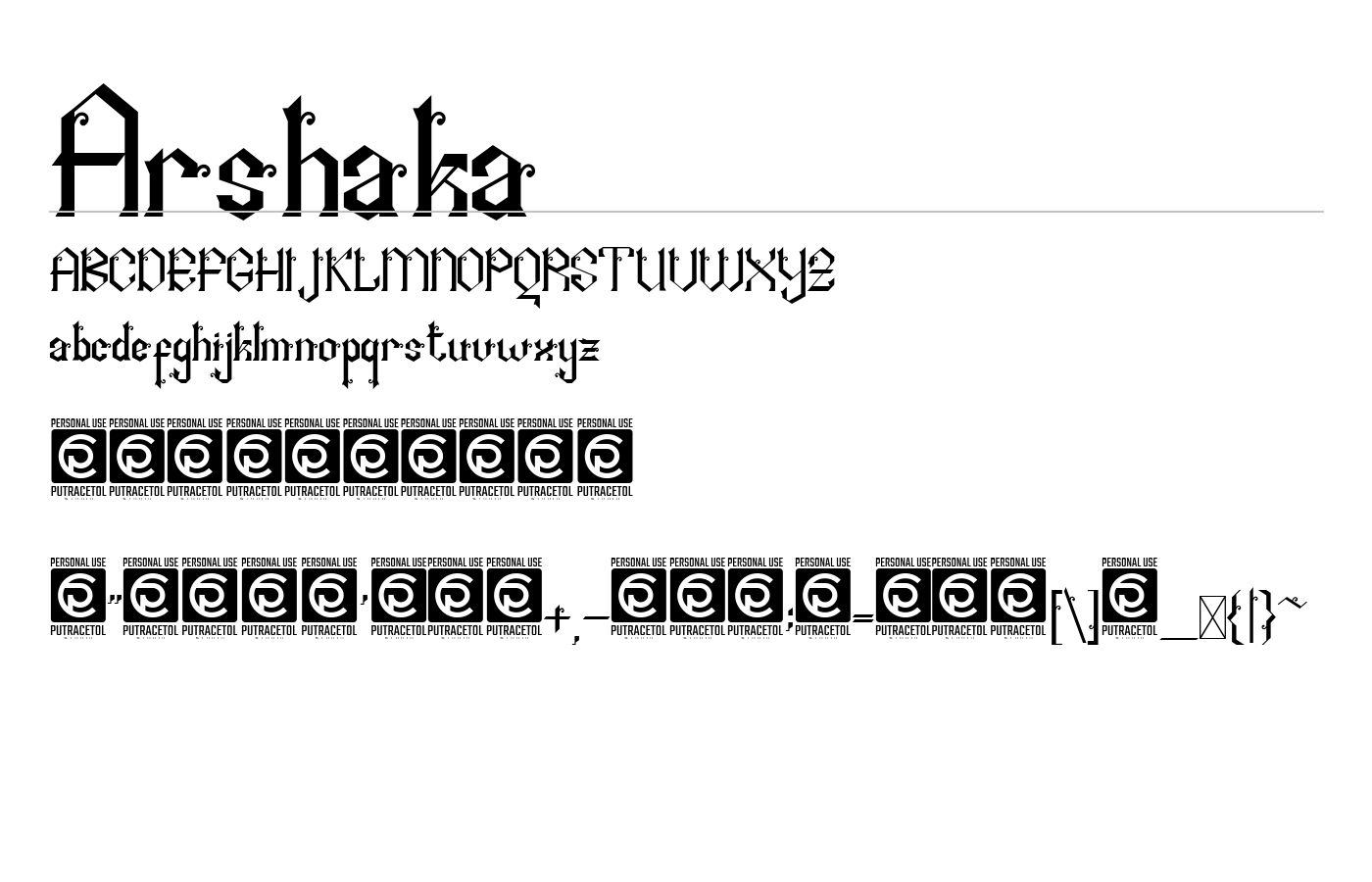
Arshaka is a distinctive blackletter-style serif font with sharp, angular strokes and ornamental curls that give it a medieval, gothic character. Its condensed letterforms and high contrast between thick and thin lines create a dramatic, vintage impression, making it ideal for projects that want to evoke tradition, mystery, or historic elegance. This font works well for logos, posters, and editorial designs where an old-world or fantasy atmosphere is desired.
Arshaka Font
About Arshaka Font